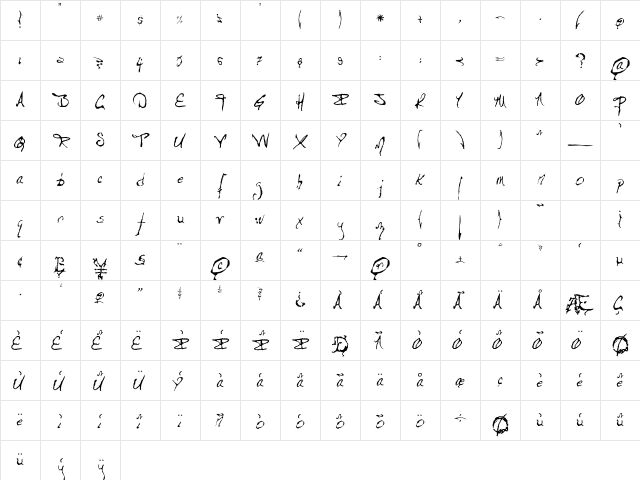
Dueodix Regular Free Font
Dueodix Regular
Design Context for Dueodix
Dueodix is a composed and adaptable typeface that performs quietly and consistently across a wide range of design contexts.